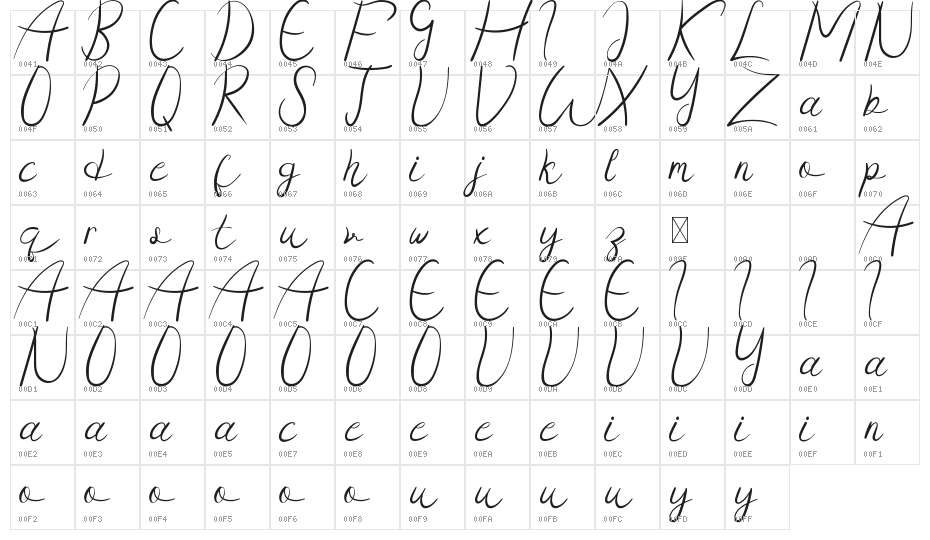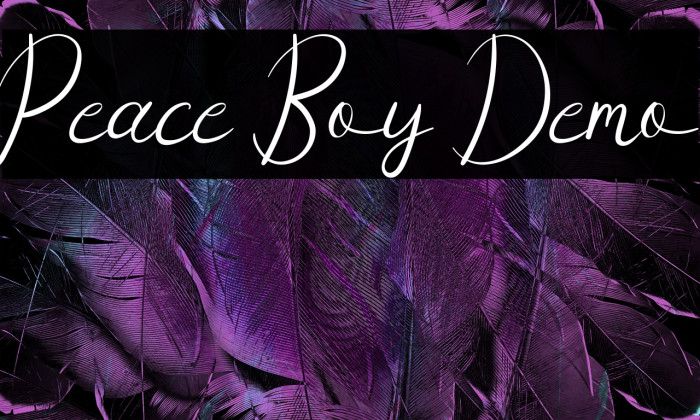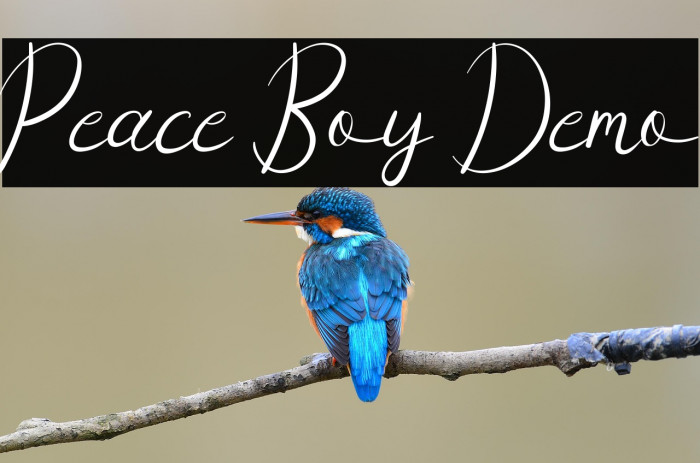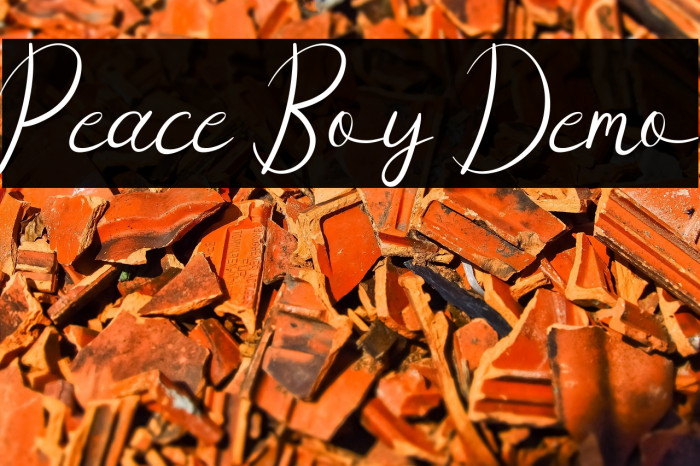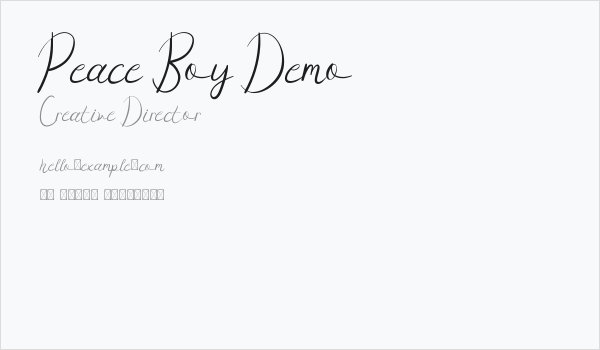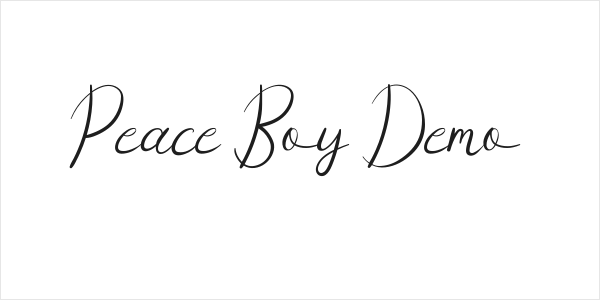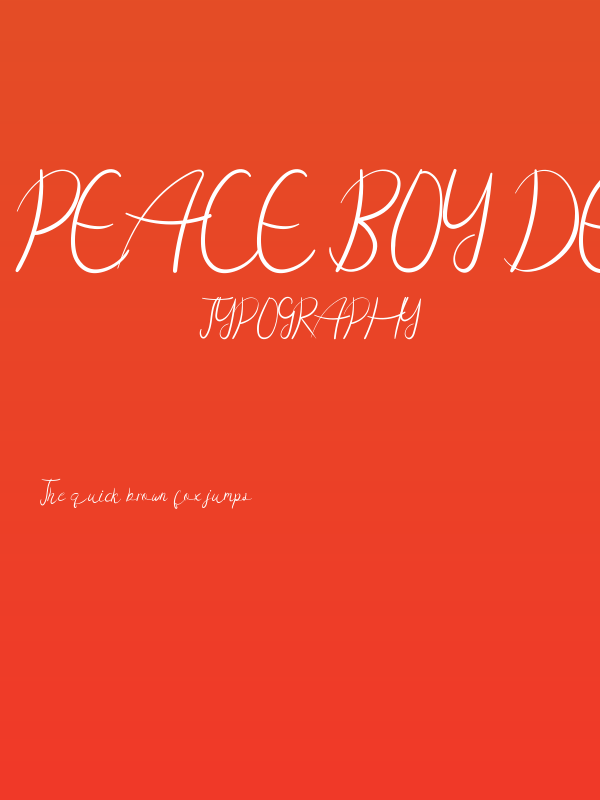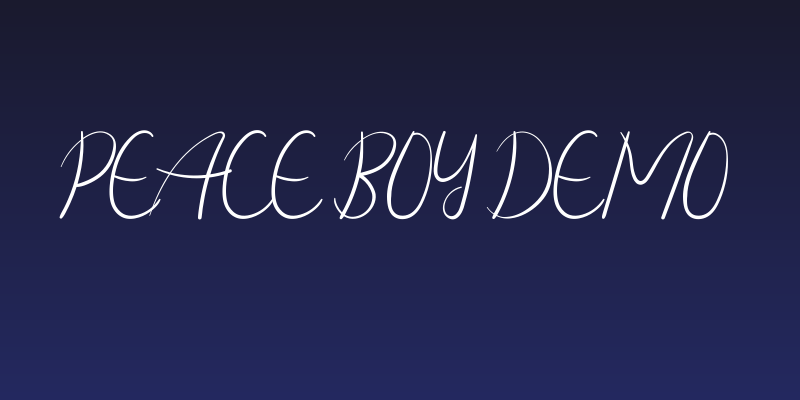
Peace Boy Demo Font
Peace Boy Demo Description
This font features a whimsical and flowing script style, characterized by its elegant, elongated letterforms and smooth, continuous strokes. The uppercase letters are particularly tall and slender, with a graceful, airy quality that gives the font a sense of movement and fluidity. The lowercase letters maintain a consistent style, with some playful loops and curves that add a touch of charm and personality. The overall design is both artistic and legible, making it suitable for creative projects that require a personal touch. The font's unique style is enhanced by its slightly uneven baseline, which contributes to its hand-drawn appearance.
| Proposed Projects | Ideal for wedding invitations, greeting cards, personal branding, and artistic projects. |